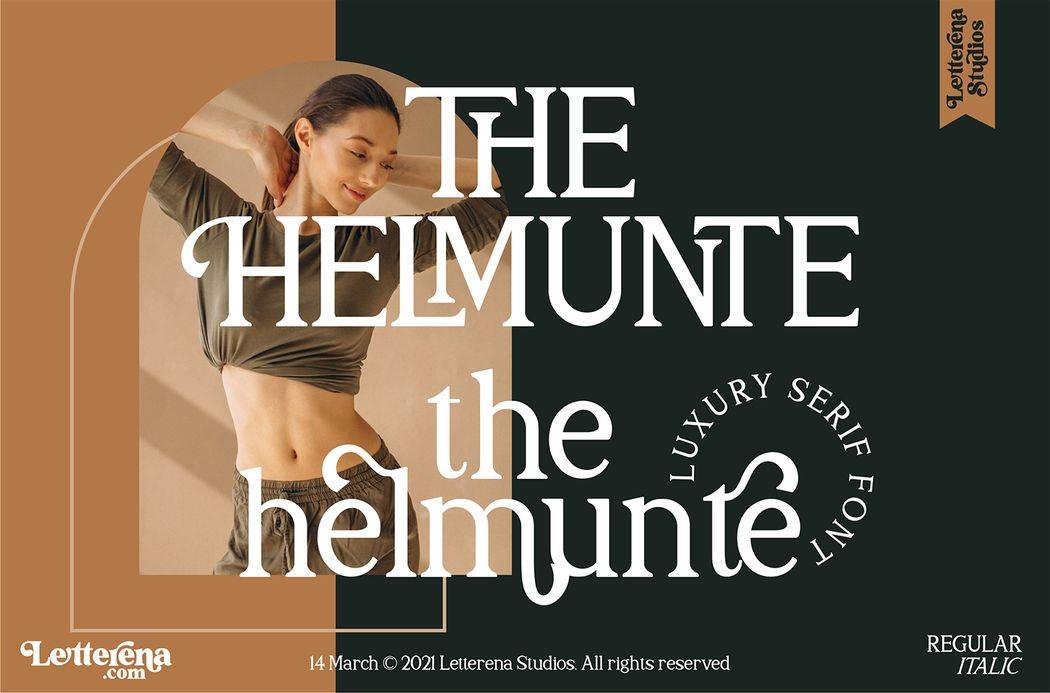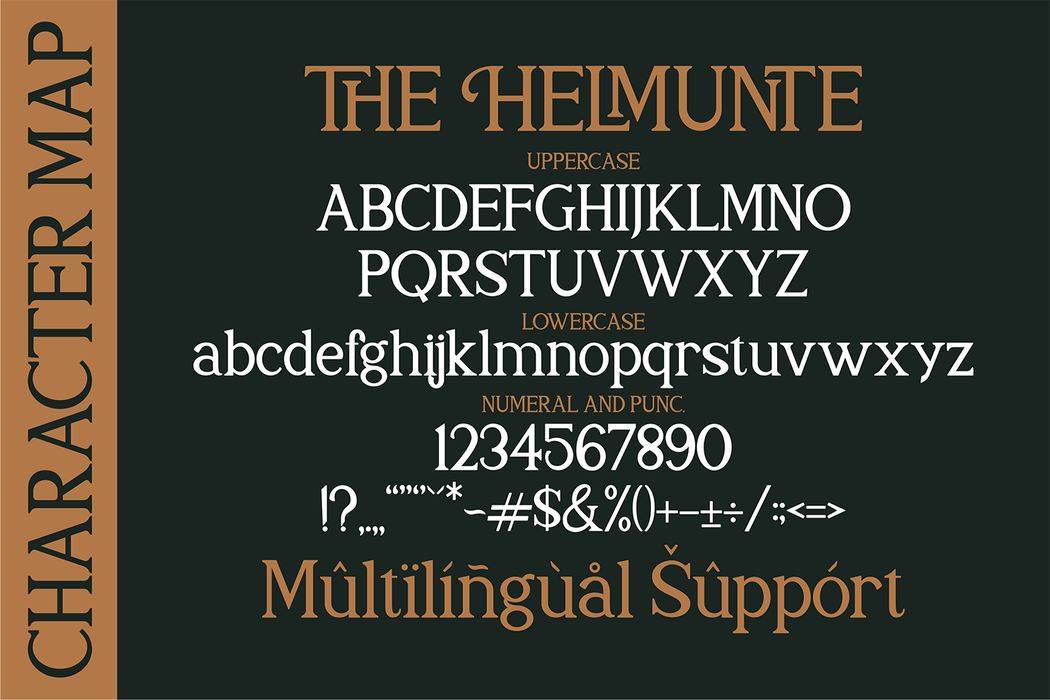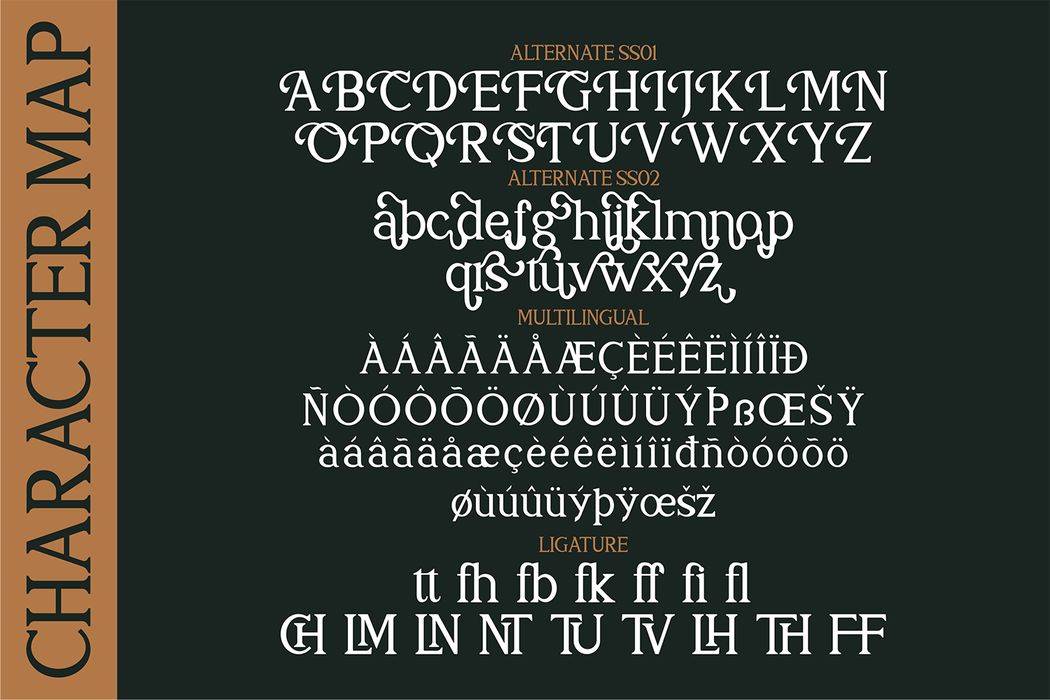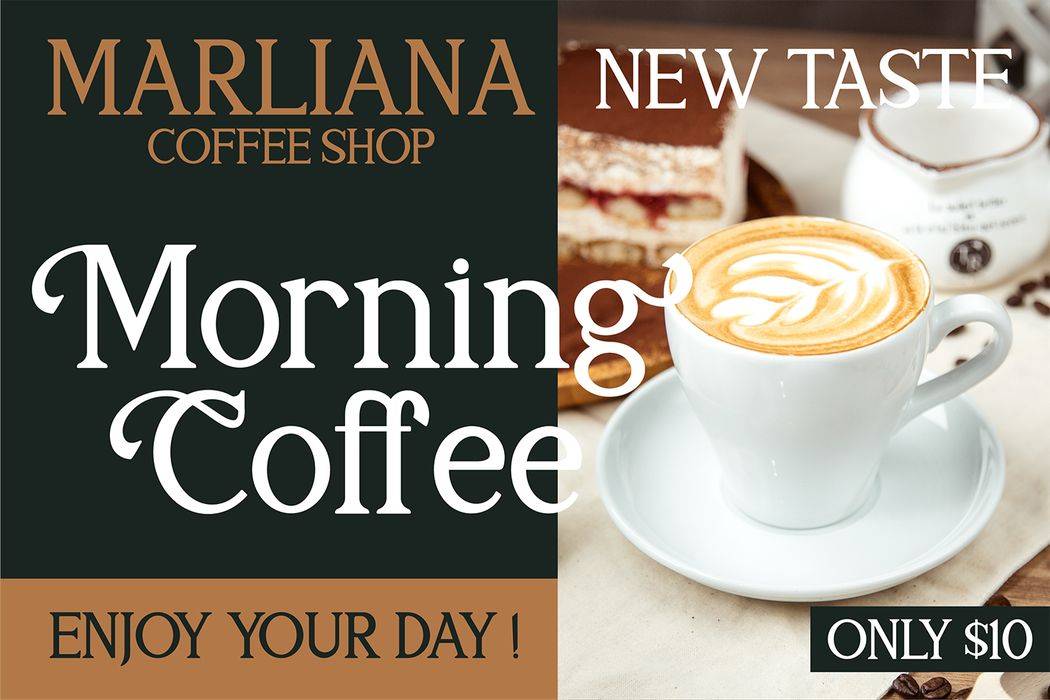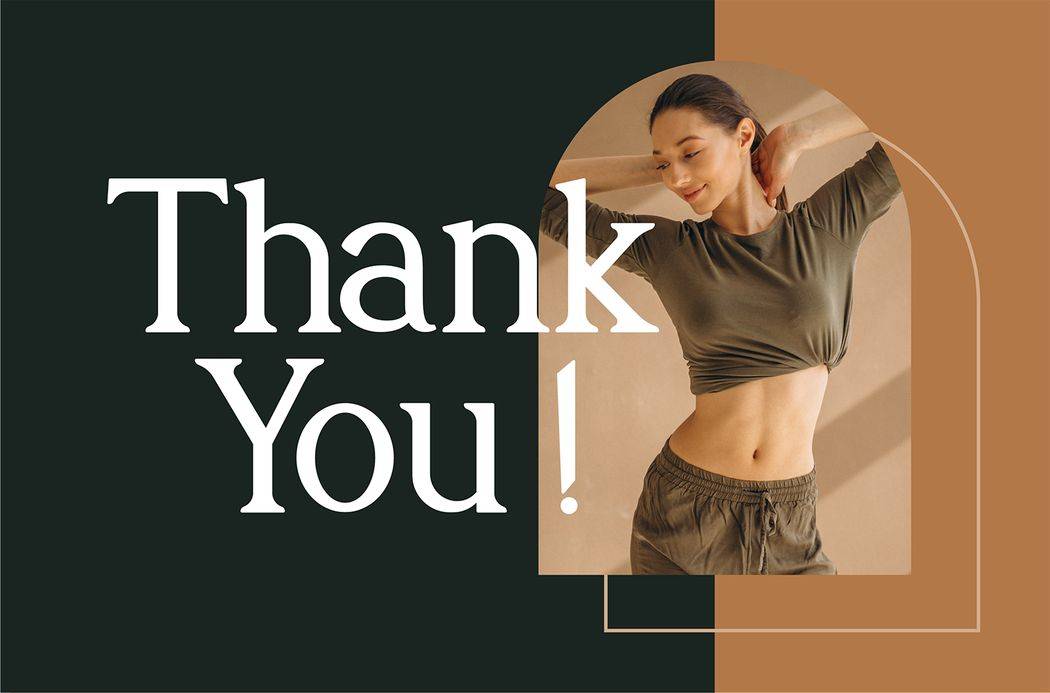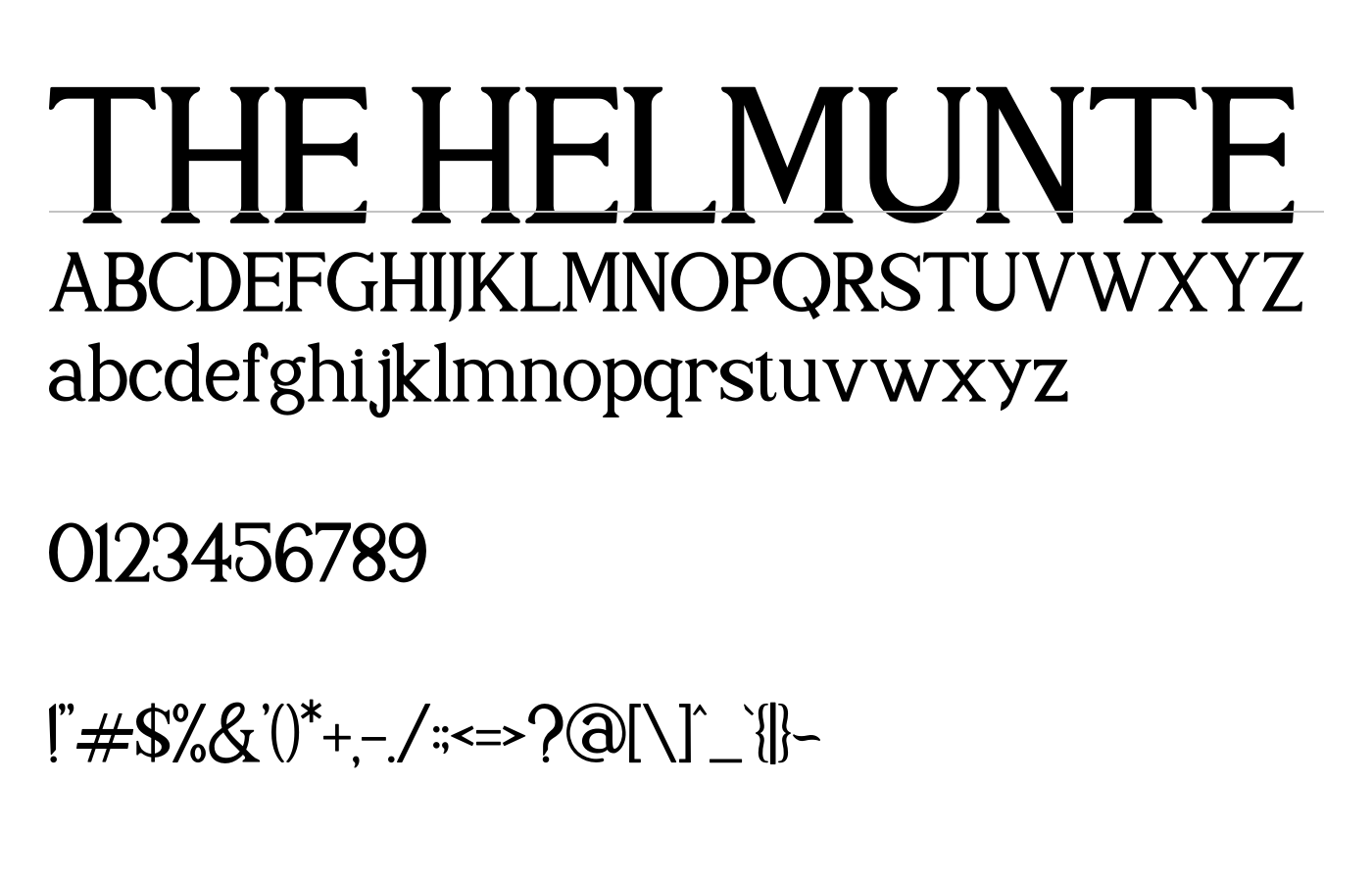
The Helmunte font is an elegant serif typeface with a refined, classic feel, featuring high contrast between thick and thin strokes and delicate, bracketed serifs. Its well-balanced proportions, with a moderate x-height and traditional letterforms like the single-story 'g' and distinctive tail on the 'Q,' give it a sophisticated and timeless appearance ideal for luxury branding, editorial headlines, and formal design contexts. This font works best where a touch of tradition and elegance is desired, making it perfect for upscale magazines, fashion packaging, and prestigious logos.
The Helmunte Font
About The Helmunte Font
| Font family | The Helmunte Font |